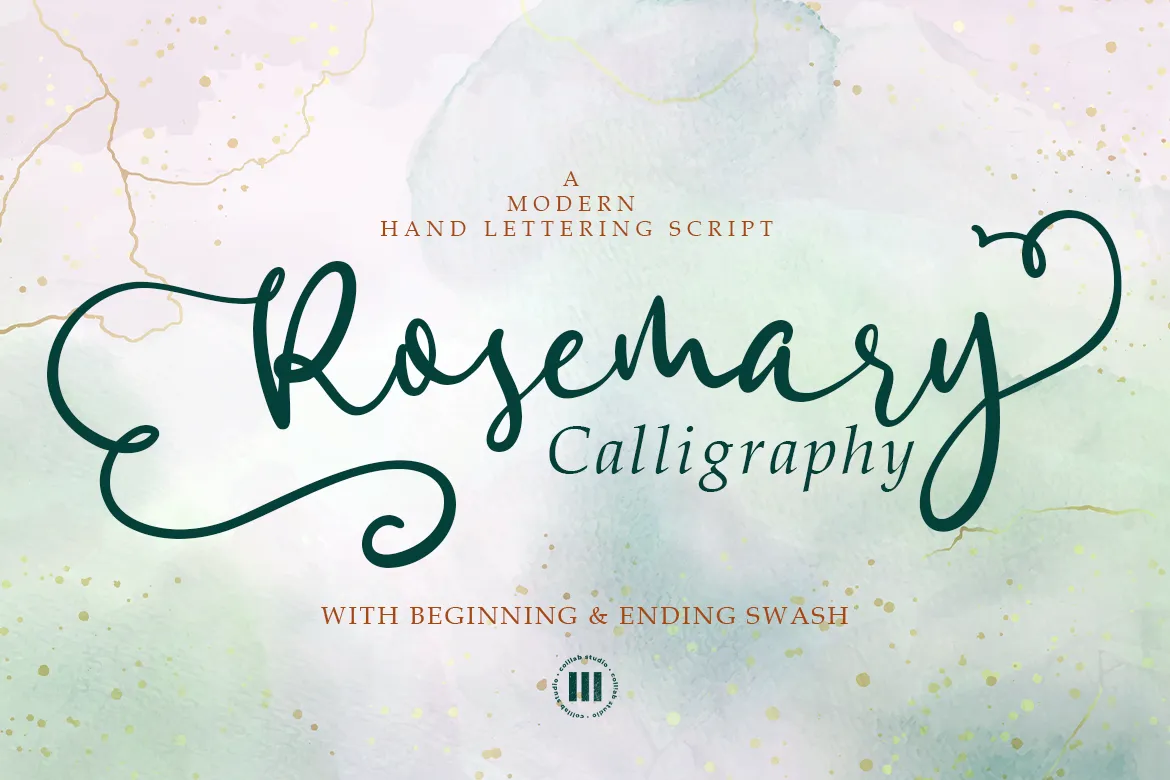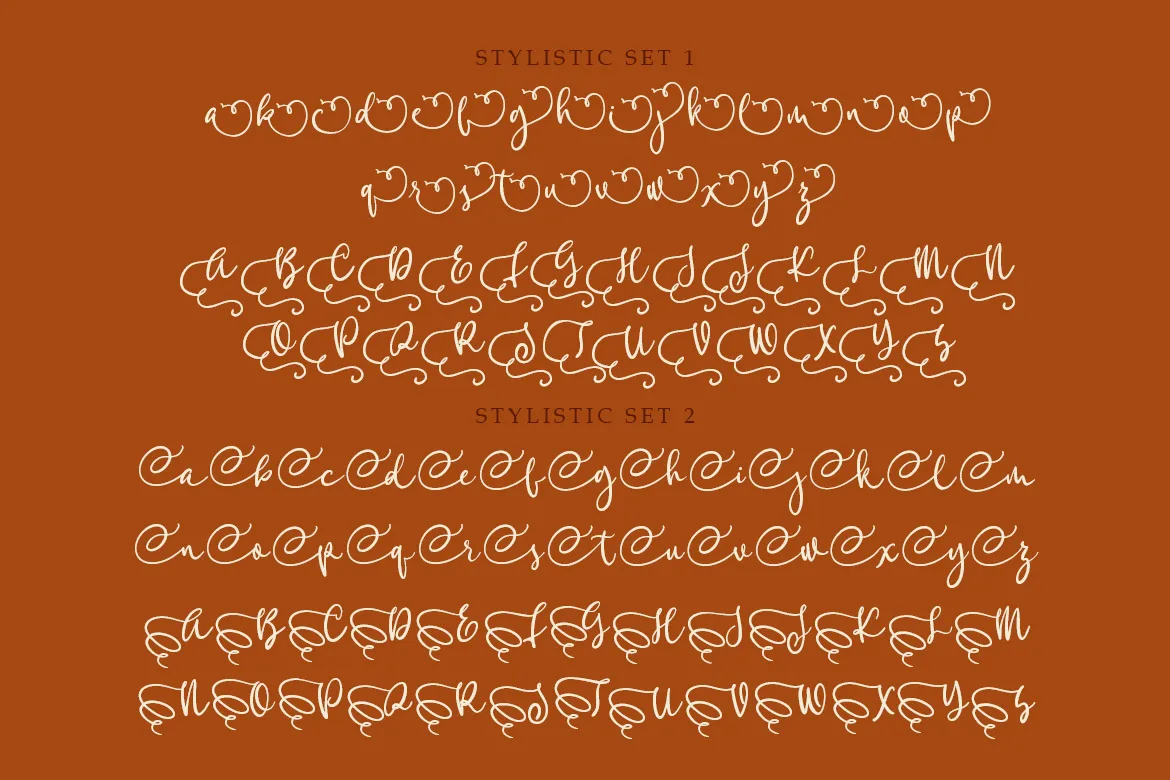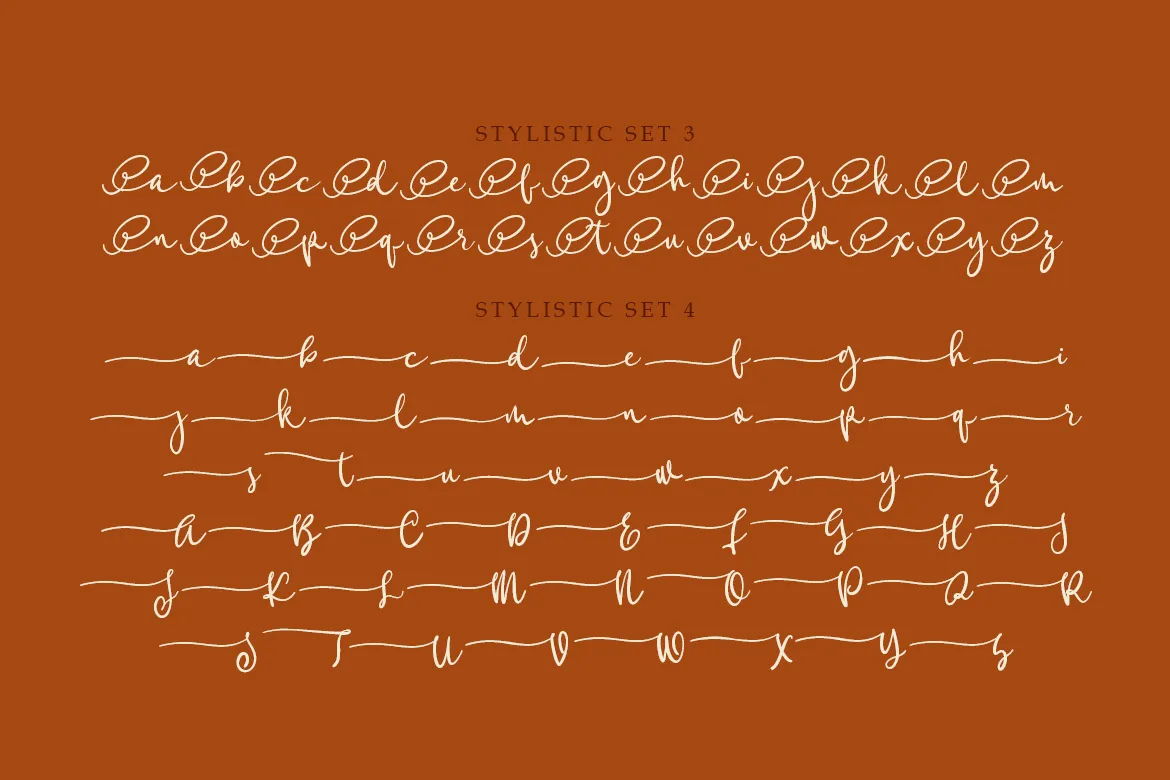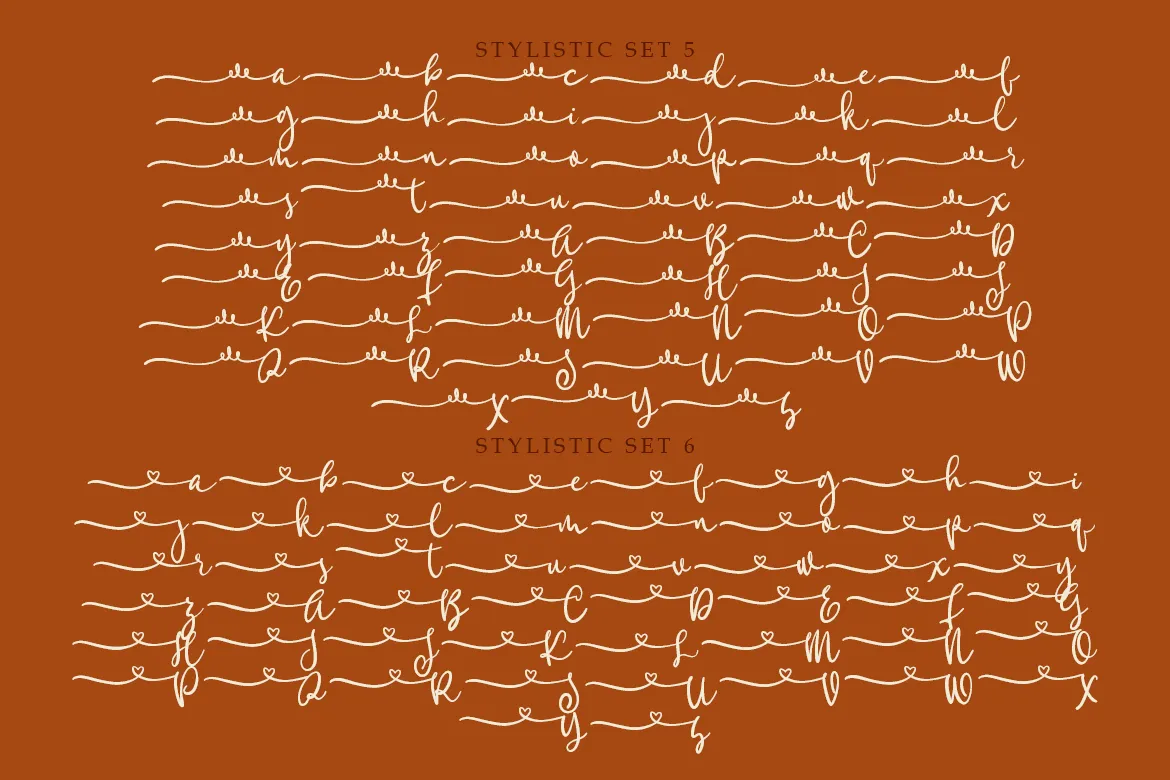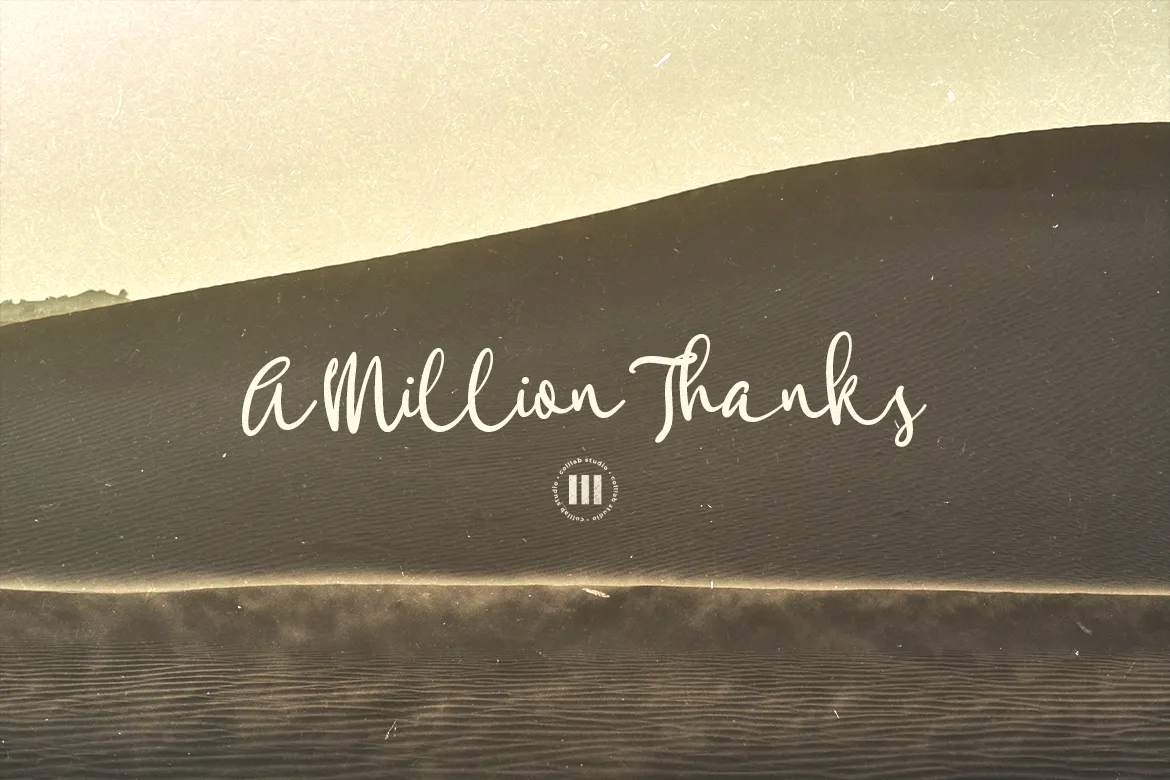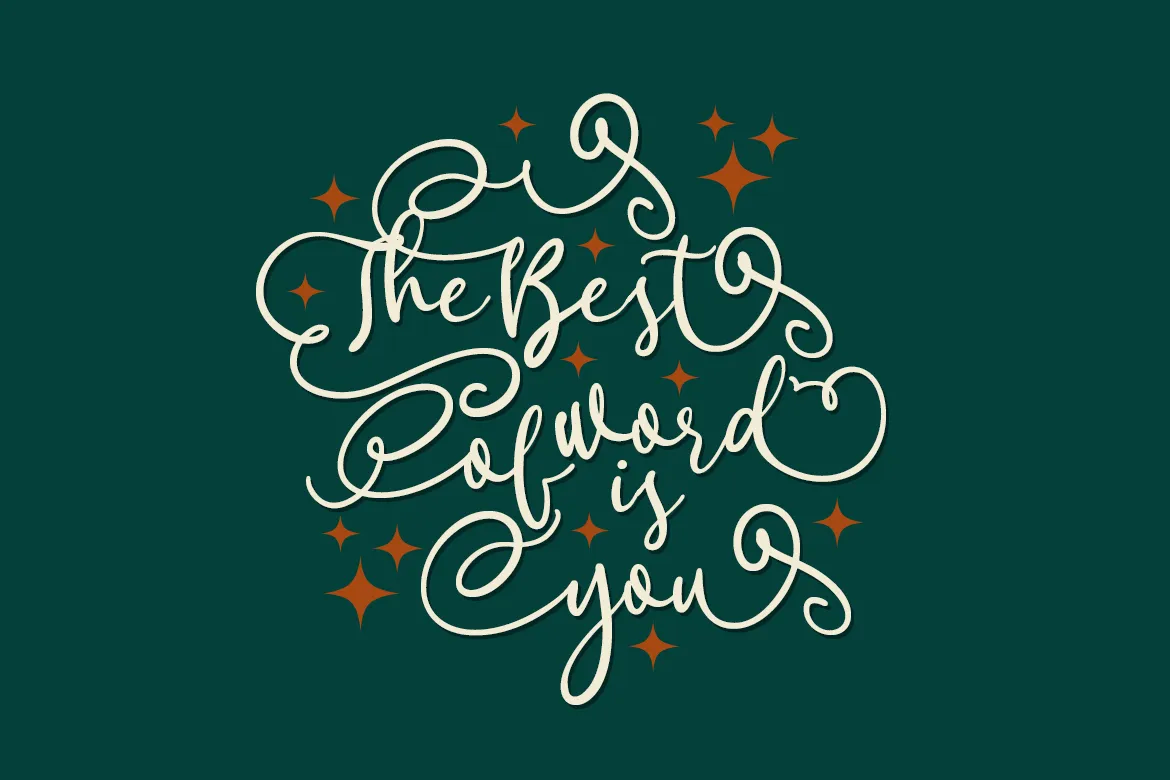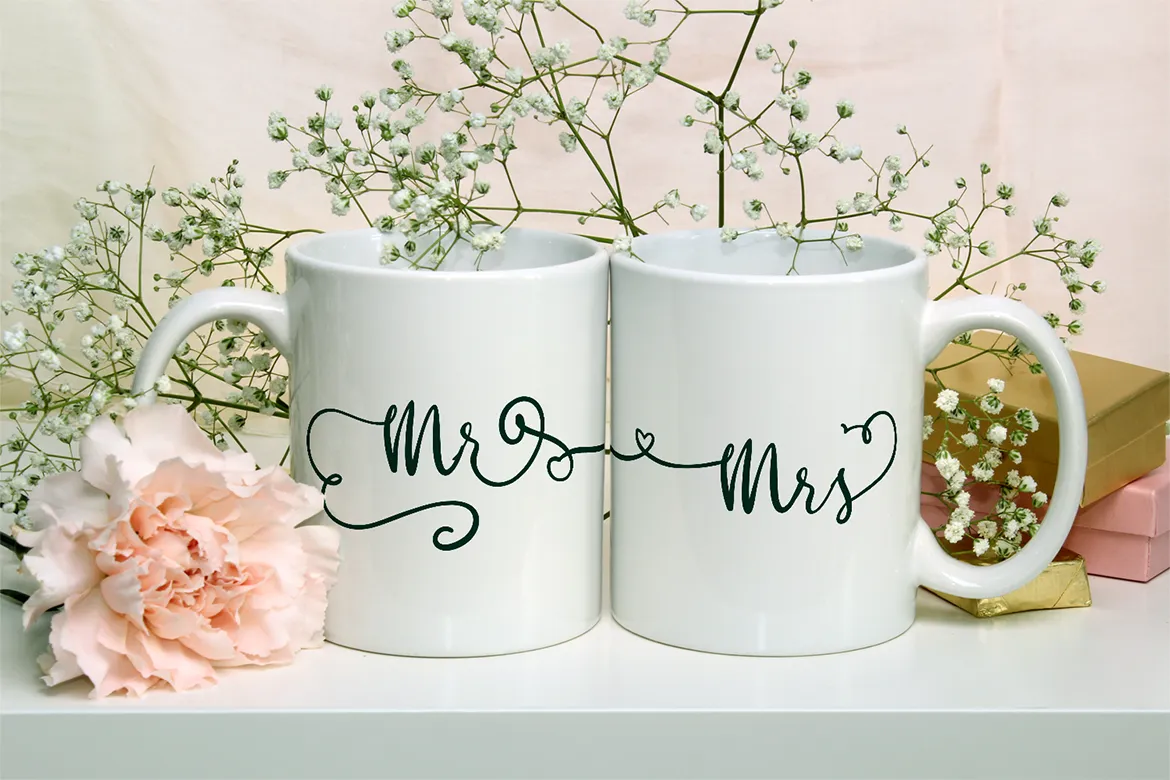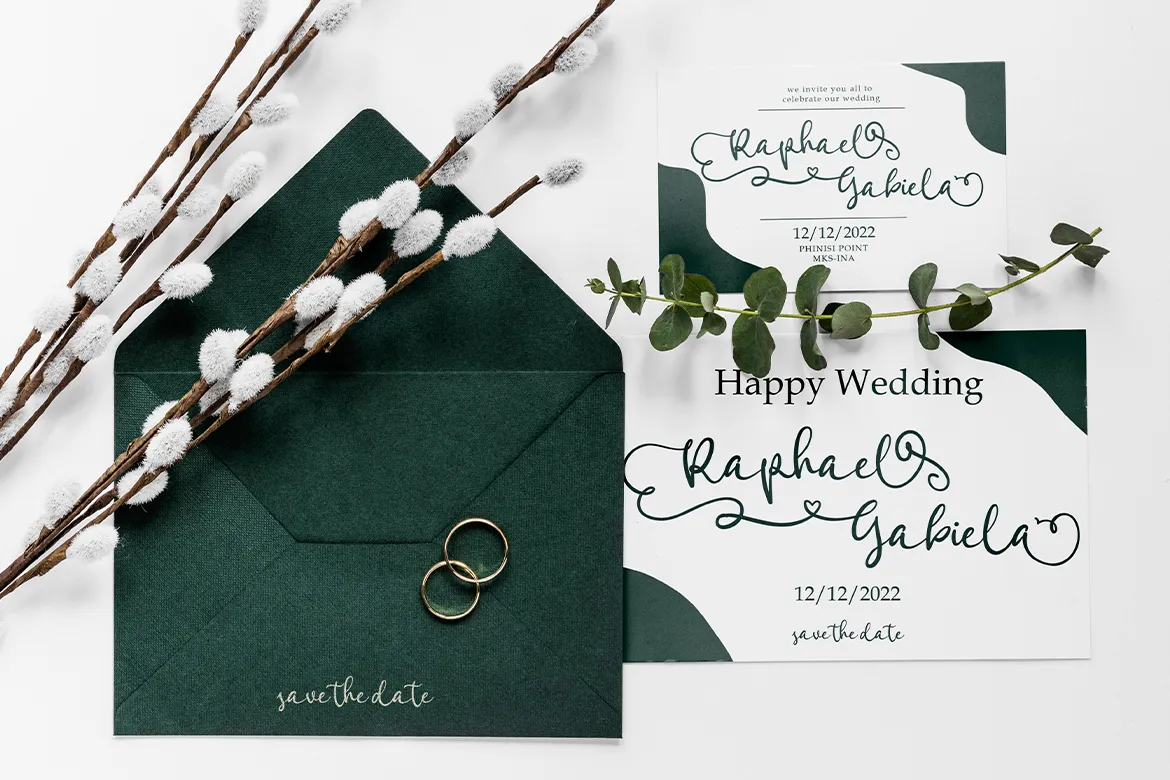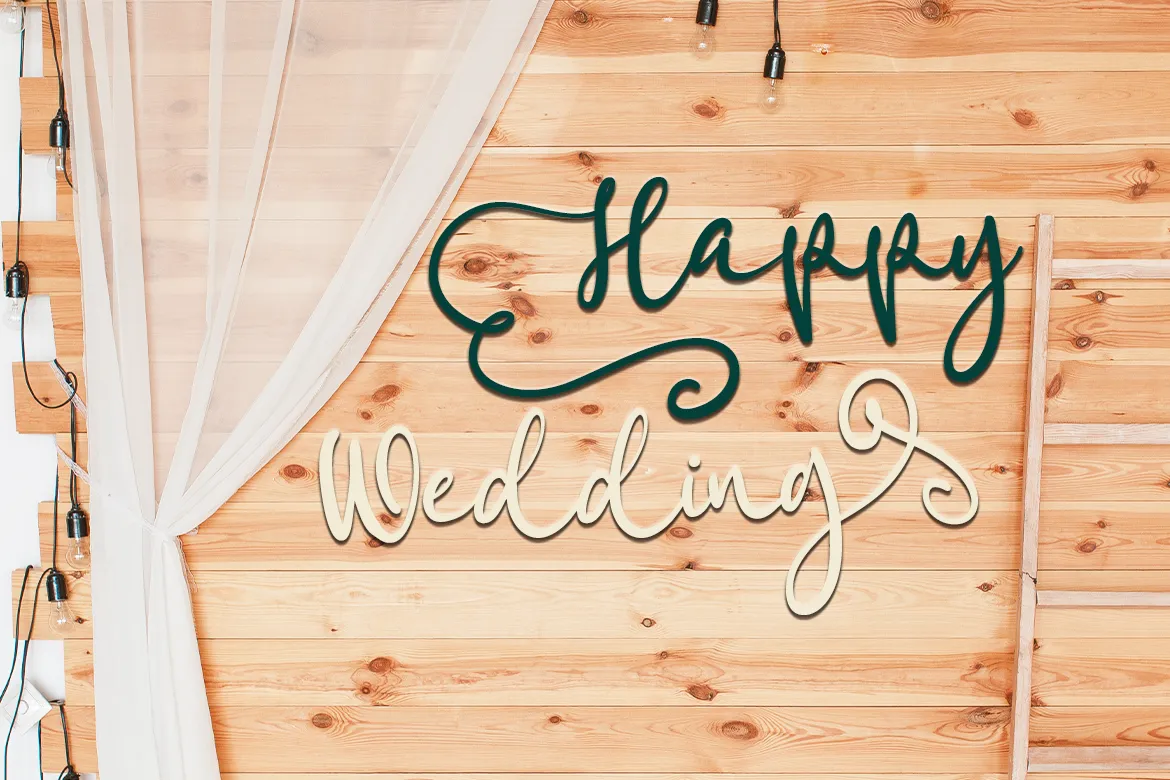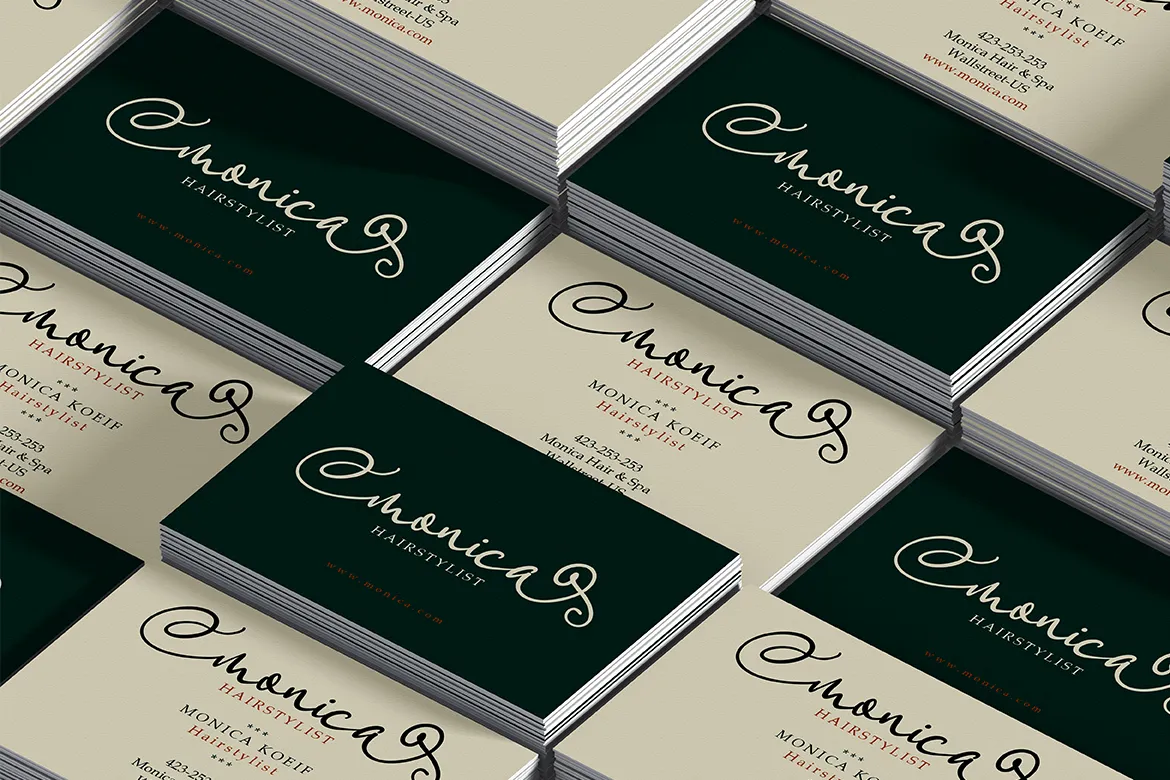
Rosemary Calligraphy
Rosemary Calligraphy is a modern hand-lettering script that blends elegance with a natural handwritten feel. With graceful swashes, flowing strokes, and versatile stylistic sets, this font brings sophistication to your designs while keeping a fresh and personal vibe.
Perfect for branding, packaging, invitations, fashion, social media, or any creative project where charm and personality matter, Rosemary Calligraphy gives your words a beautifully expressive touch.
• Sets of Ligatures, Swashes & Stylistic Alternates